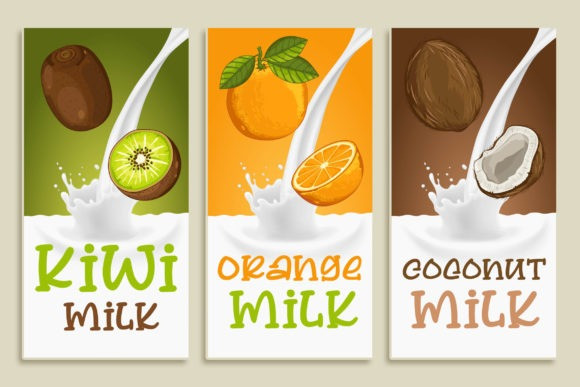
Chickenic Font
Chickenic Font by Khurasan 16,861 downloads
Chickenic Font
Chickenic Display Font is a modern and fancy display font perfect for posters, logos, magazines, book covers, banners, and many more! Get this quirky display font, and use it to create lovely designs!